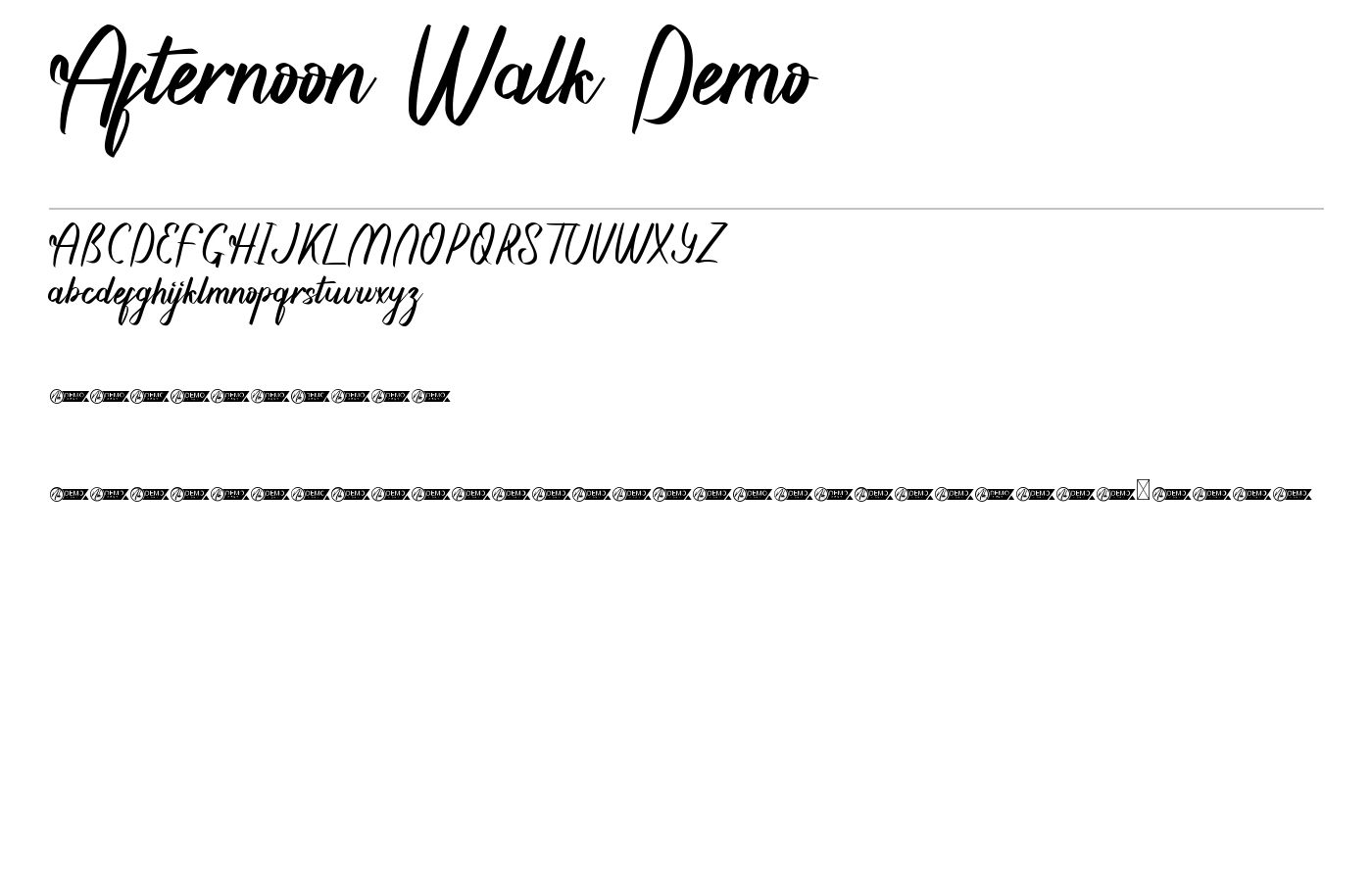
Afternoon Walk Demo is a stylish and playful script font with a casual, handwritten feel. Its smooth, flowing strokes and moderate contrast give it an elegant yet approachable personality, making it ideal for creative branding, invitations, and lifestyle projects that seek a warm, personal touch. This font works beautifully in logos, headers, and packaging where a sense of friendliness and charm is desired.
Afternoon Walk Demo Font
About Afternoon Walk Demo Font